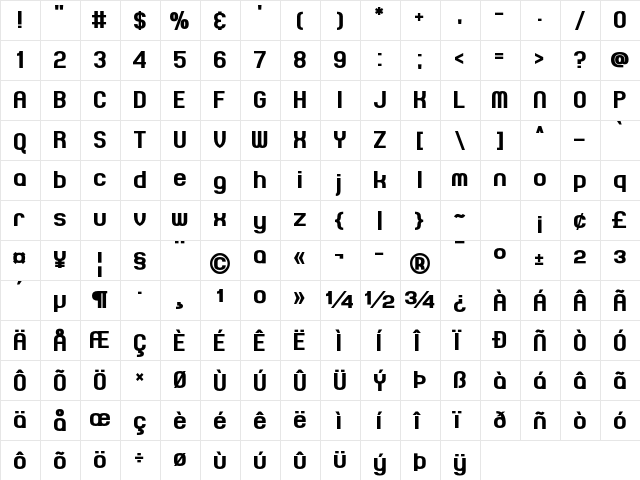
Joyful Theatre Regular
Design Context for Joyful Theatre Typeface
Joyful Theatre is a composed and adaptable typeface that performs quietly and consistently across a wide range of design contexts.
Pro Tip: Use Joyful Theatre in both headline and body roles to test its range before committing to a single application.